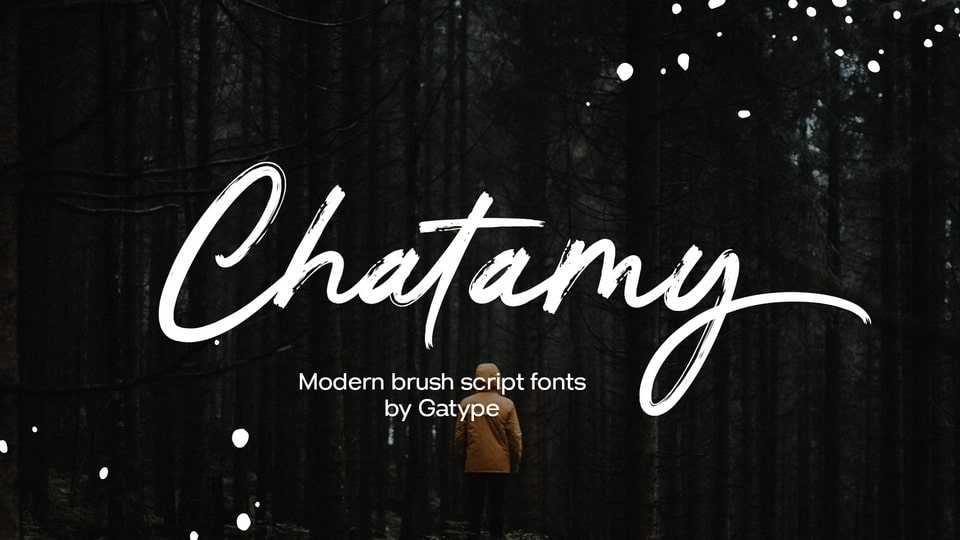
Download Chatamy font, a brush-style typeface characterized by smooth, elegant, and slightly messy handwritten letters, creating an artistic and natural look.